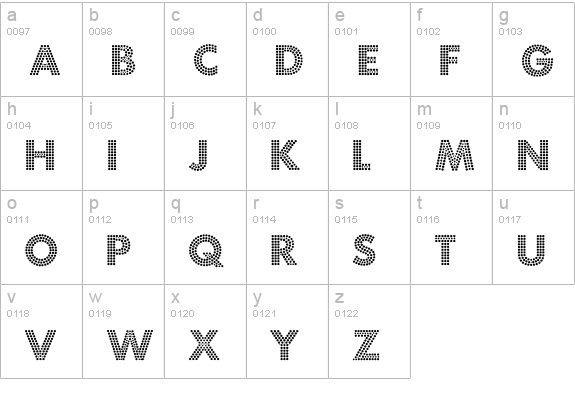
Fortuna Dot is a charming and versatile font that exudes a sense of playfulness and creativity. With its rounded edges and whimsical dots decorating each letter, this typeface is perfect for adding a touch of fun to any design project. Whether you're creating invitations, greeting cards, or social media graphics, Fortuna Dot is sure to make your text stand out. What's even better is that Fortuna Dot is available for free download at FontsMarket.com. So you can easily add this delightful font to your collection without any cost. Don't miss out on the opportunity to enhance your designs with the unique character of Fortuna Dot. Download it today and let your imagination run wild!